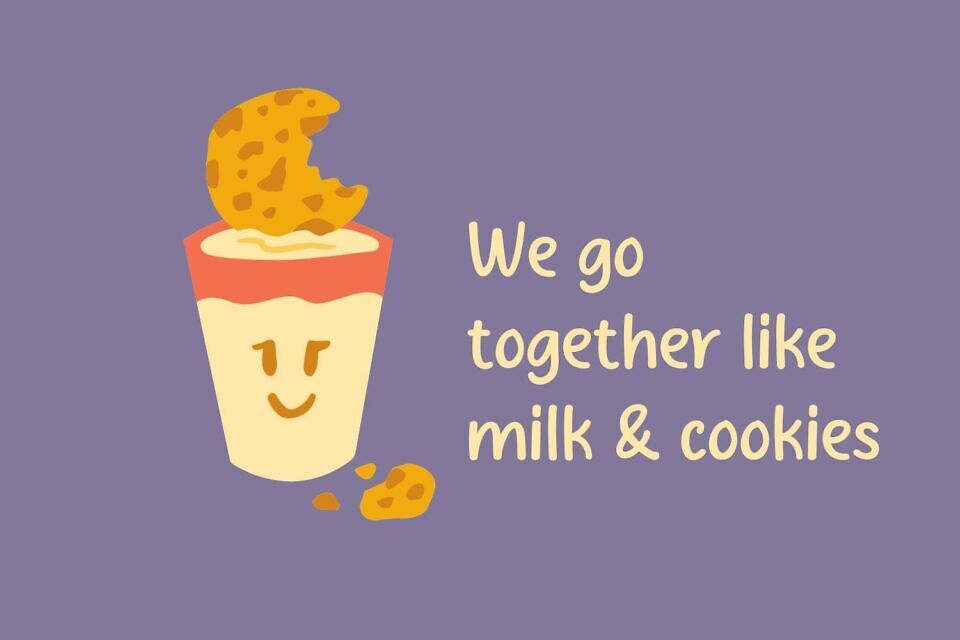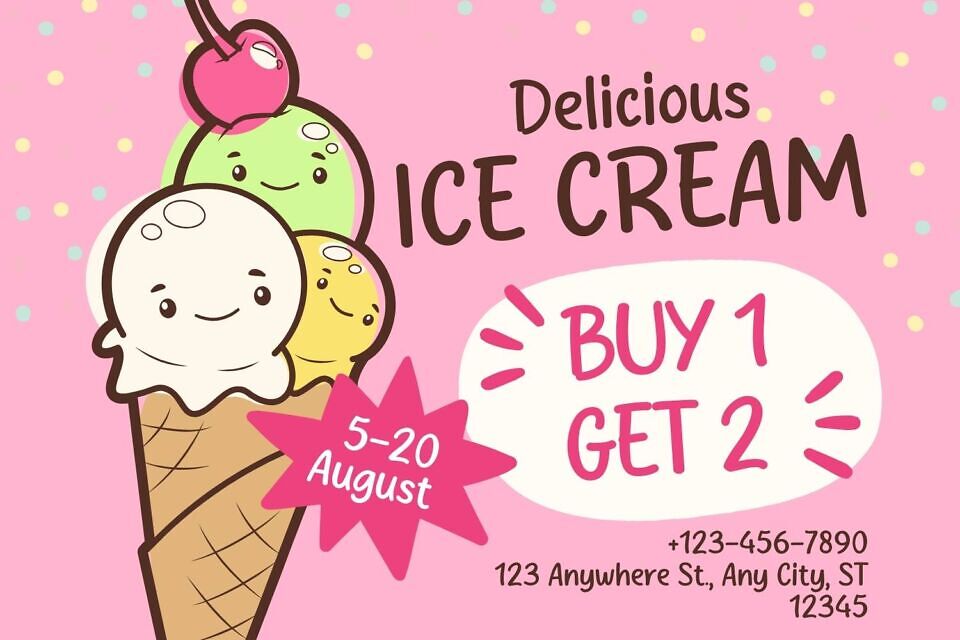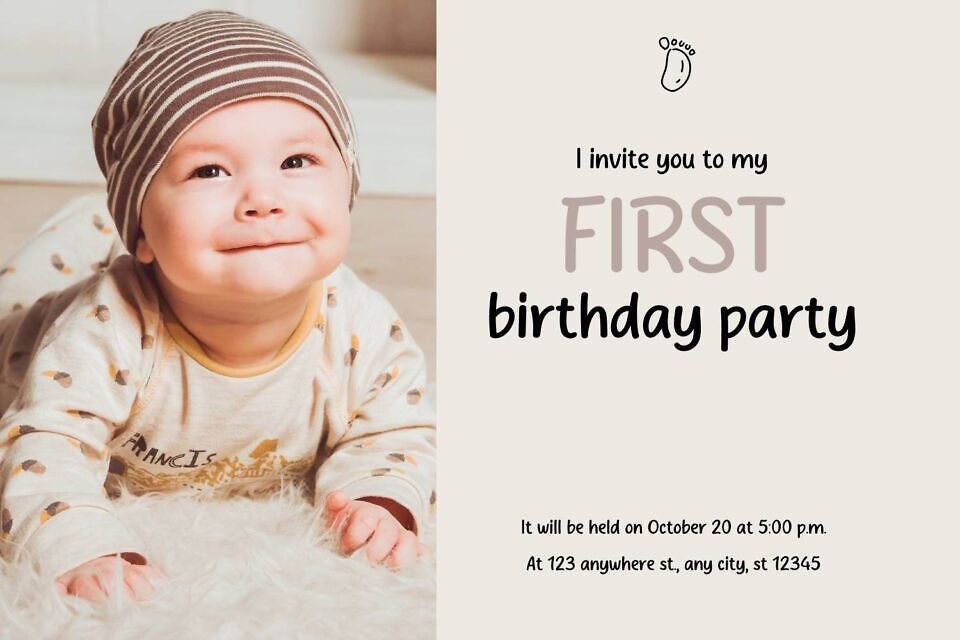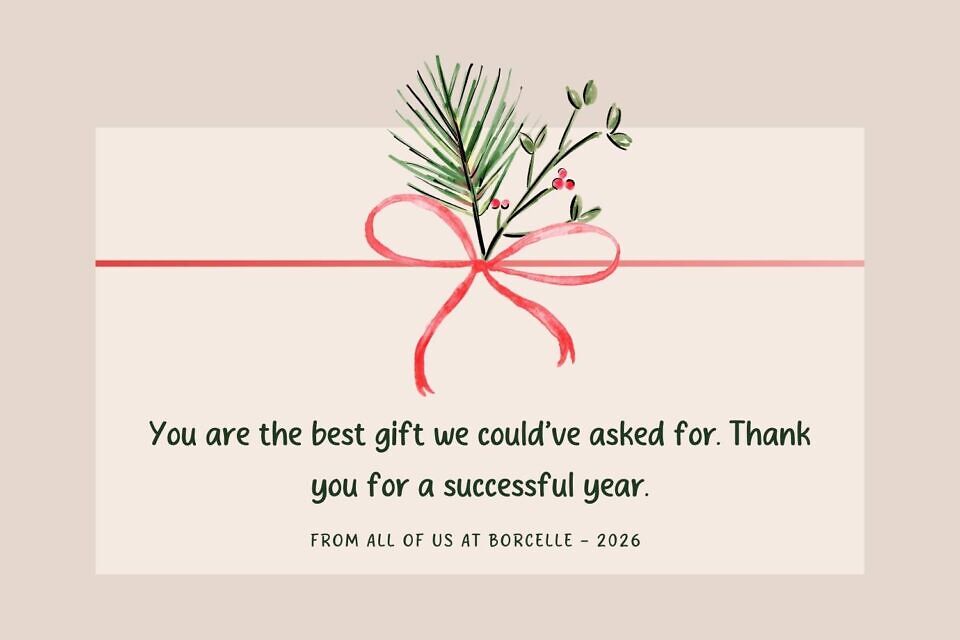
Honey Salt Font is a sweet and friendly handwritten font created by MJ Type. Cute and fun, this font is ideal for writing wedding invitations, cards, or any other design that might need a fun touch!